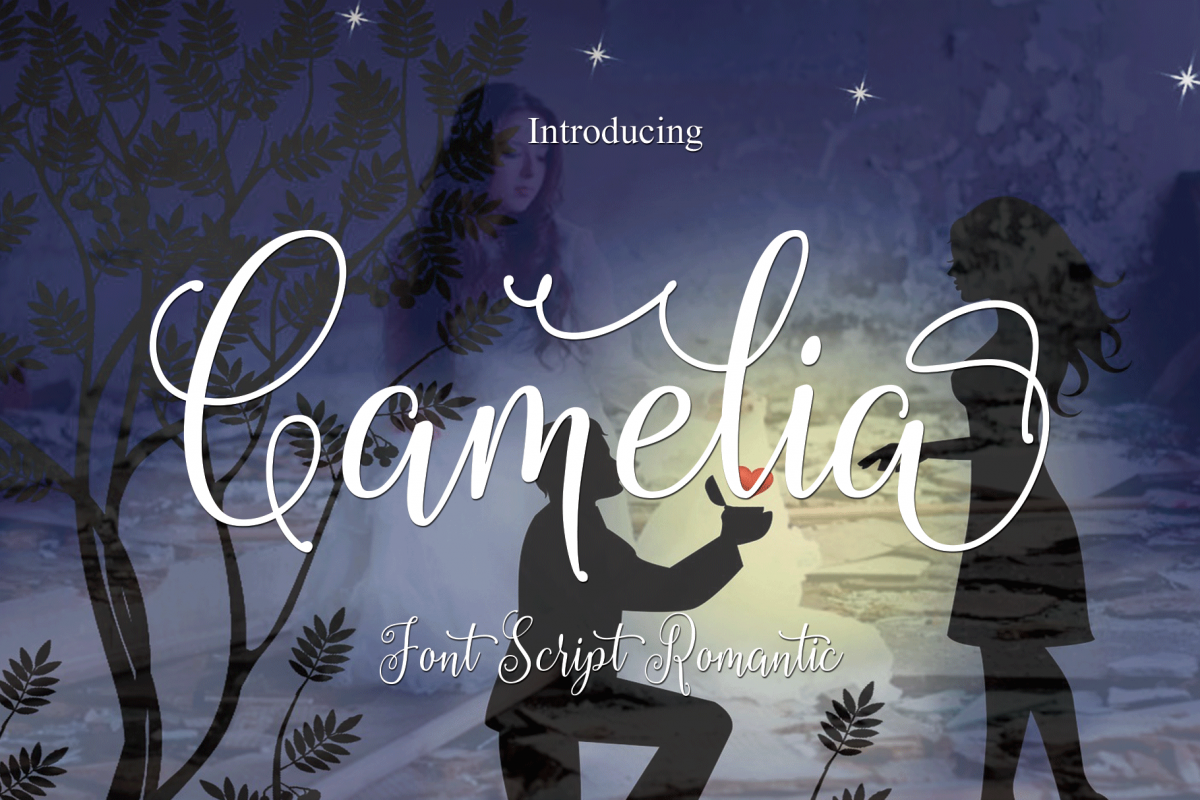
Camelia
Camelia is Modern Calligraphy. This font was designed by handwriting, and it has a modern and unique forms of calligraphy, the writing style is very natural.
Standart ligatures
Discretionary ligatures
Stylistic Alternates
Stylistic sets